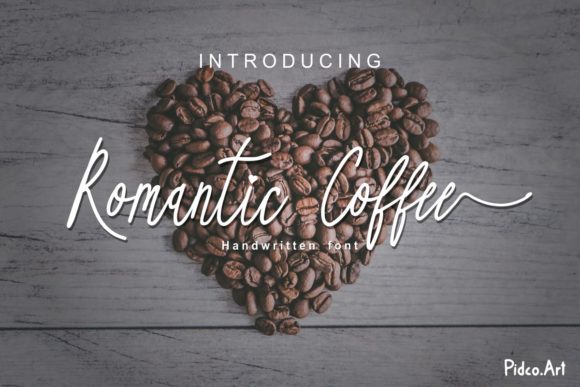
Unleash the charm of handwritten elegance with Romantic Coffee, a captivating script font that exudes a touch of sophistication and warmth. Its graceful curves and delicate strokes evoke the feeling of a handwritten letter, adding a personal touch to your digital creations.
Immerse yourself in the beauty of this font, meticulously crafted with attention to detail. Romantic Coffee's alluring alternates and swashes bring a dynamic touch to your designs, effortlessly elevating them to the next level. Whether you're crafting wedding invitations, creating heartfelt greeting cards, or designing eye-catching logos, this font is the perfect choice to add an unforgettable charm.
Step into a world of creative possibilities with Romantic Coffee. Its versatility knows no bounds, making it the ideal font for a wide range of projects. From elegant branding materials to whimsical social media posts, this font seamlessly adapts to your vision, adding a touch of sophistication and charm.
Experience the beauty of Romantic Coffee and elevate your designs to new heights. Its elegant handwritten style captures the essence of romance and warmth, leaving a lasting impression on your audience. Download Romantic Coffee today and unlock the limitless potential of creativity, turning your digital dreams into captivating realities.